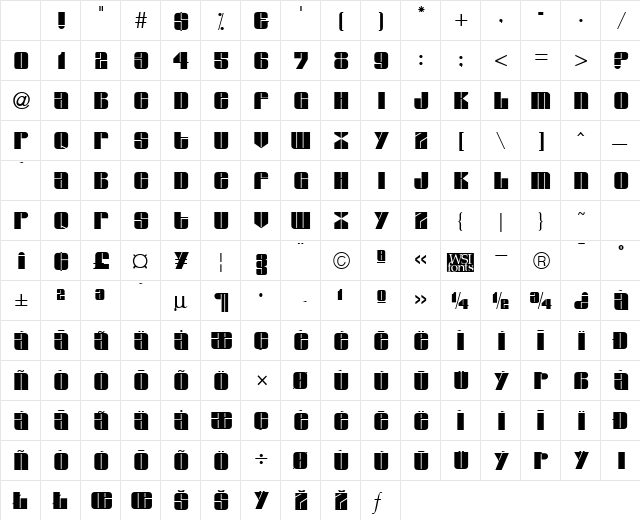
Grover Regular
Grover Family
Grover Regular
Complete Grover Regular glyph index. Displaying only characters natively supported by Grover Regular font.
Design Context for Grover
Grover is a composed and adaptable typeface that performs quietly and consistently across a wide range of design contexts.